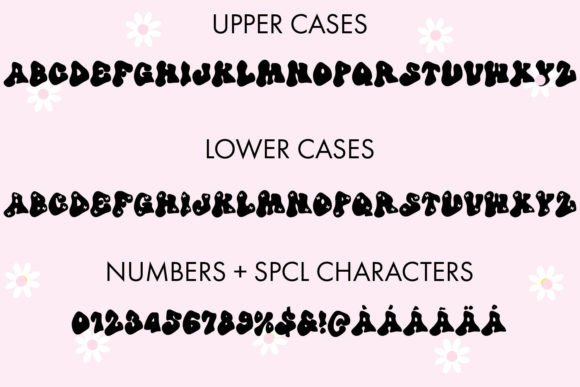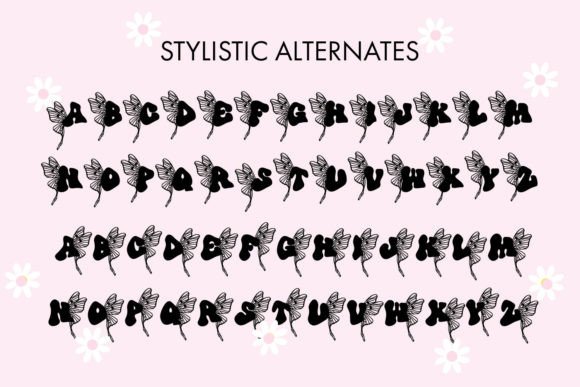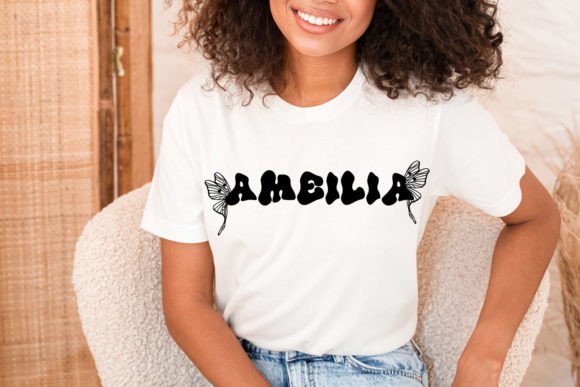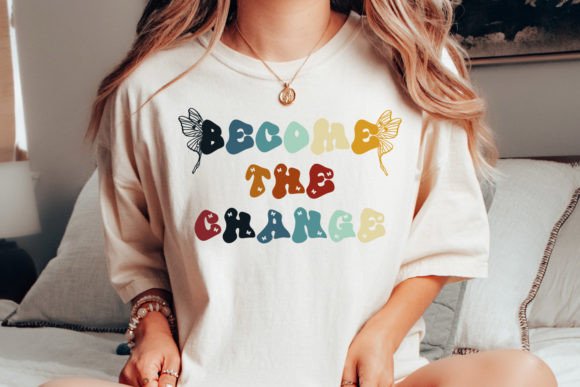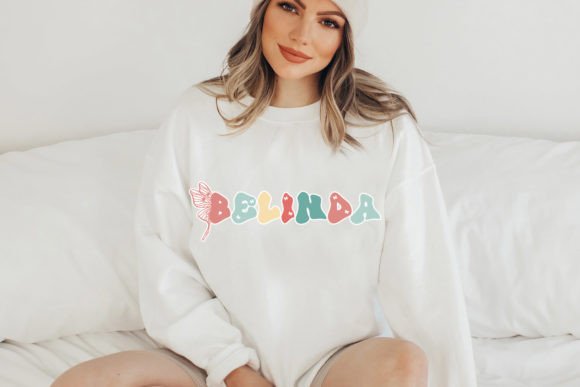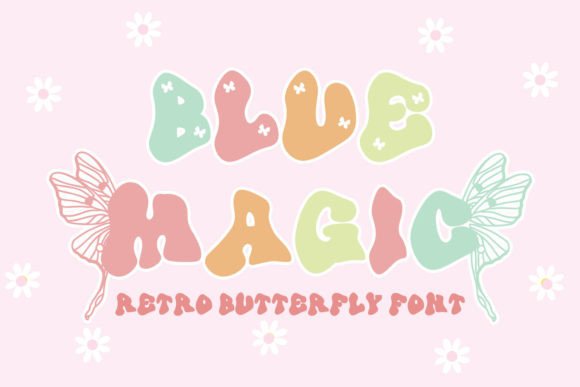
Introducing Blue Magic: A Whimsical Handwritten Font with a Touch of Retro Charm
Are you ready to add a dash of magic to your designs? Look no further than Blue Magic, a beautiful handwritten font that will transport you back to the retro era. This enchanting typeface is perfect for designers and crafters who want to infuse their work with a touch of nostalgia and elegance. With its elegant curves and playful strokes, Blue Magic is sure to cast a spell of creativity and whimsy on your designs.
The Charm of Blue Magic
Blue Magic is more than just a font – it’s an experience. Imagine a world where words come alive, dancing on the page with delicate butterfly wings and stylistic alternates that add a touch of playfulness to your designs. This font is perfect for anyone who wants to add a touch of sophistication and elegance to their work, while still maintaining a sense of fun and creativity.
Whether you’re a designer, crafter, or simply someone who loves to get creative, Blue Magic is the perfect choice for your next project. From T-shirt designs to phone cases, greeting cards to invitations, and mugs to much more, this font can be used for anything that sparks your imagination.
Key Features of Blue Magic
- Handwritten Retro Style: Blue Magic boasts a beautiful handwritten retro style that’s perfect for adding a touch of nostalgia to your designs.
- Butterfly Wings Alternates: The font features delicate butterfly wings and stylistic alternates that add a touch of whimsy and playfulness to your designs.
- Elegant Curves and Playful Strokes: The elegant curves and playful strokes of Blue Magic make it perfect for creating designs that are both sophisticated and fun.
With Blue Magic, the design possibilities are endless. Here are a few ideas to get you started:
- T-Shirt Designs: Create unique and eye-catching T-shirt designs that will make your customers stand out from the crowd.
- Phone Cases: Add a touch of personality to phone cases with Blue Magic’s elegant and playful design.
- Greeting Cards and Invitations: Create beautiful and elegant greeting cards and invitations that will make your loved ones feel special.
- Mugs and More: From mugs to tote bags, Blue Magic is perfect for adding a touch of whimsy and personality to any product.
Why Choose Blue Magic?
So why choose Blue Magic over other fonts? Here are just a few reasons:
- Unique and Eye-Catching: Blue Magic is a unique and eye-catching font that will make your designs stand out from the crowd.
- Versatile: Blue Magic is versatile and can be used for a wide range of design projects, from T-shirt designs to greeting cards and more.
In conclusion, Blue Magic is a beautiful and enchanting handwritten font that’s perfect for designers and crafters who want to add a touch of retro charm to their designs. With its elegant curves, playful strokes, and delicate butterfly wings alternates, this font is sure to cast a spell of creativity and whimsy on your designs. So why wait? Get creative and have fun with Blue Magic today!